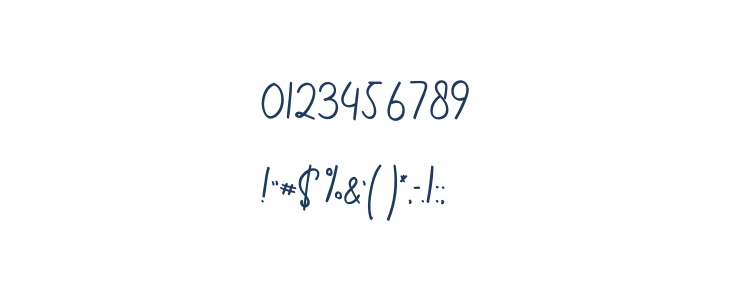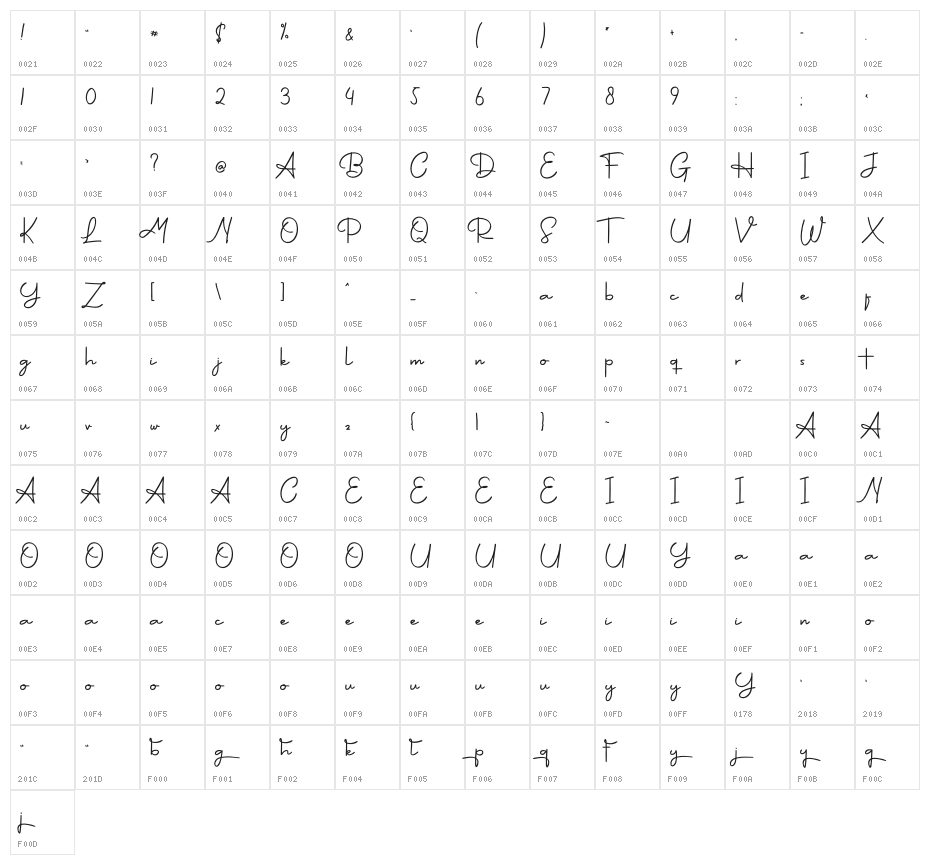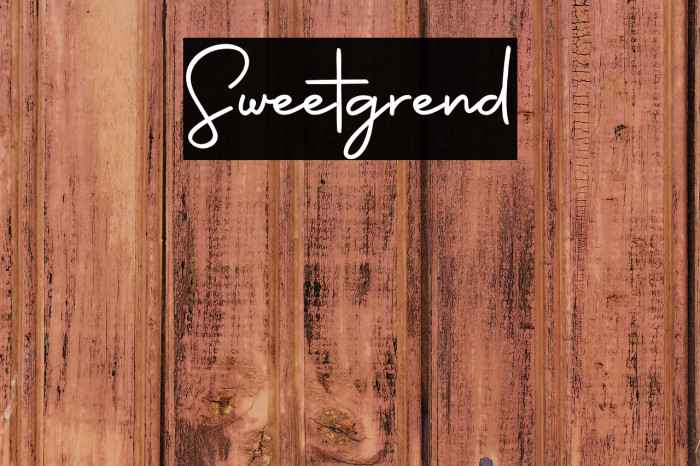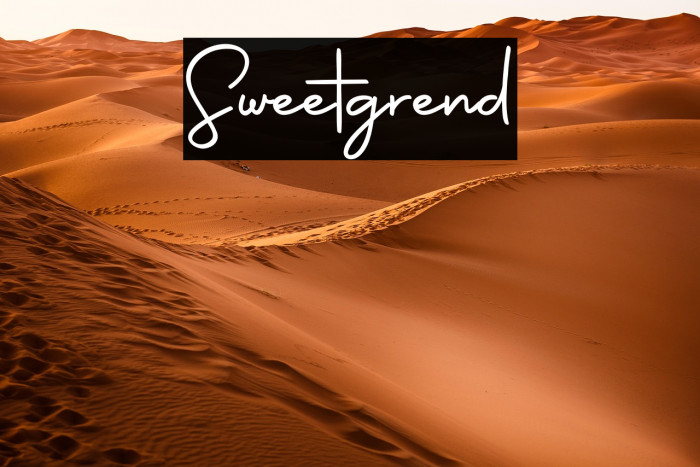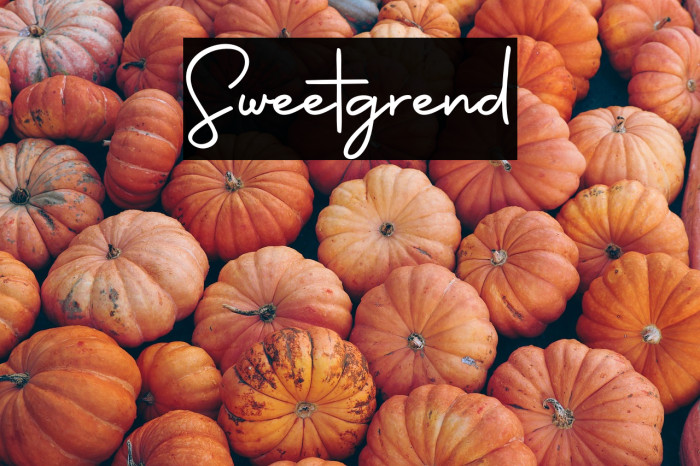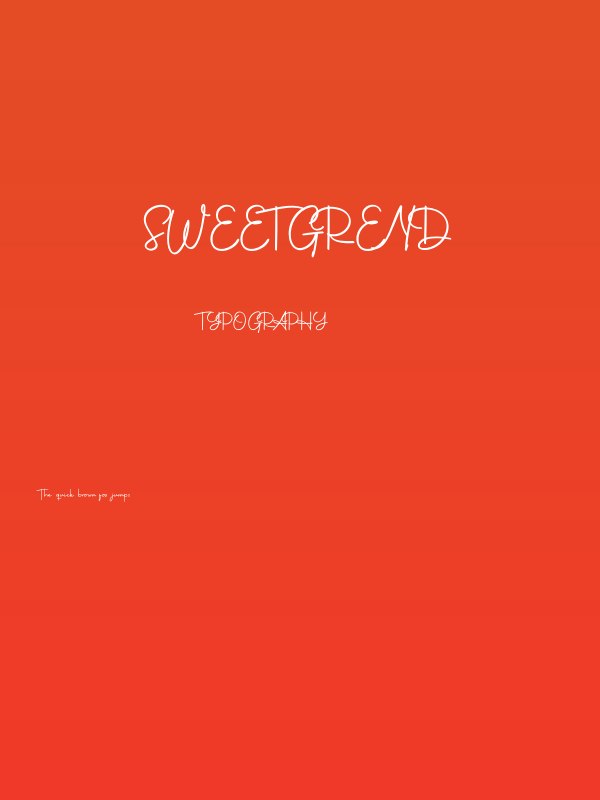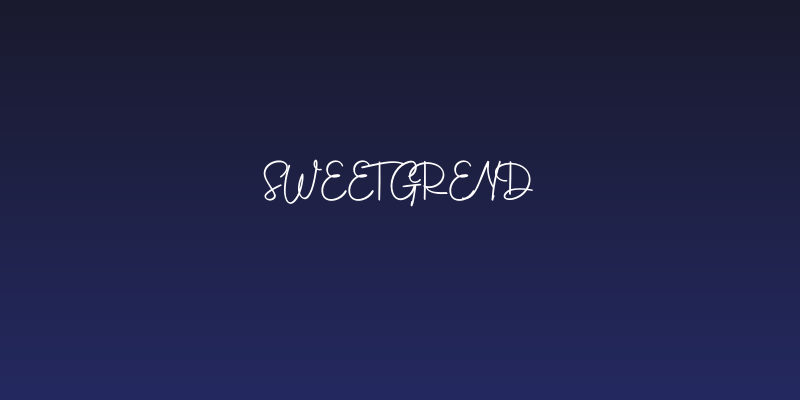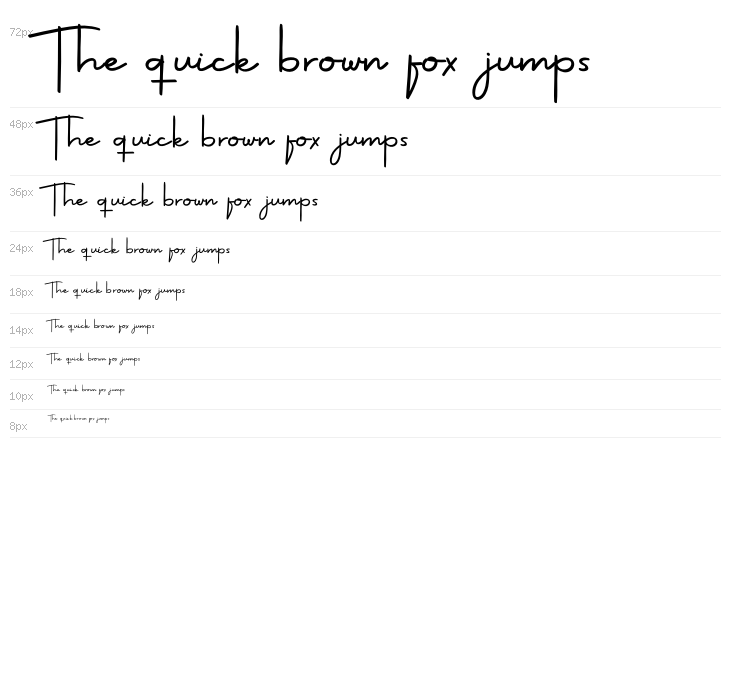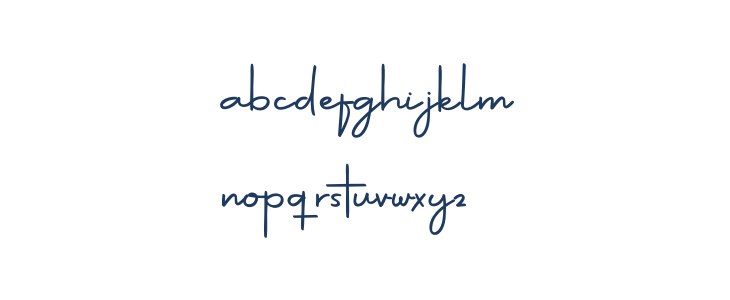
Sweetgrend Font
Sweetgrend Description
This font features a playful and whimsical handwritten style, characterized by its fluid and flowing letterforms. The uppercase letters exhibit a dynamic and energetic quality, with varying stroke widths that add a sense of movement and liveliness. The lowercase letters maintain a consistent style, complementing the uppercase with their smooth curves and rounded edges. The numerals are clear and legible, maintaining the same playful aesthetic. Special characters are thoughtfully designed to match the overall style, ensuring a cohesive look across all text. This font is ideal for projects that require a personal and informal touch, such as invitations, greeting cards, or creative branding.
| Overall Style | Whimsical |
| Proposed Projects | Ideal for invitations, greeting cards, creative branding, and personal projects. |